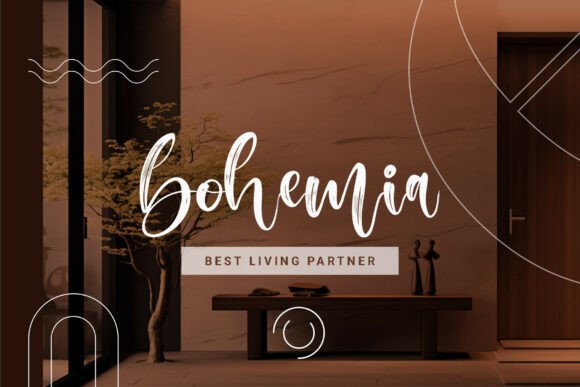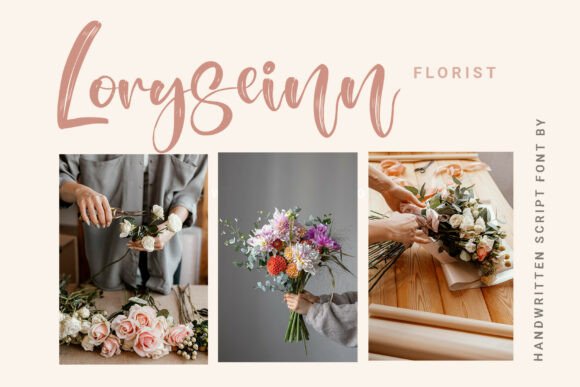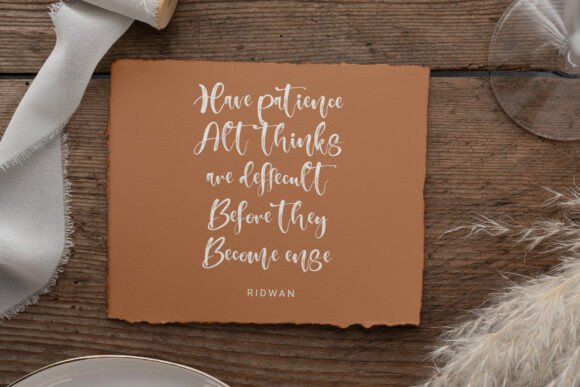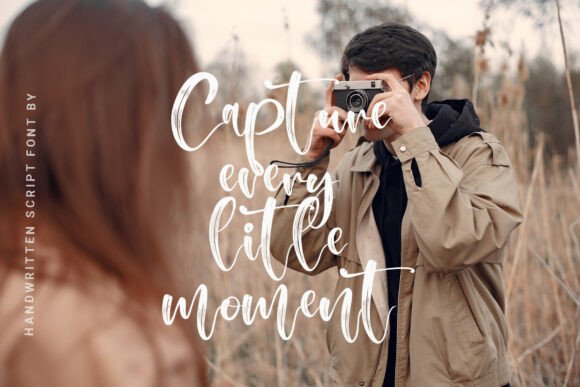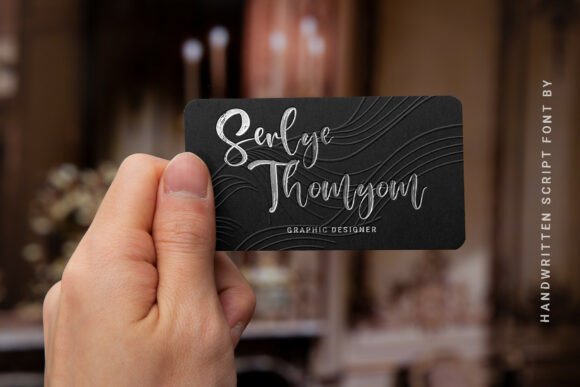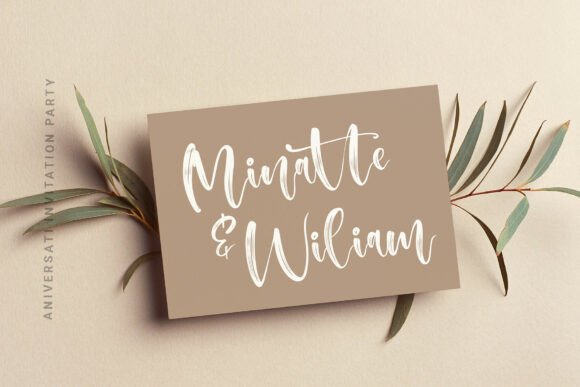
Bristleon Font: Unleash the Raw Energy of Handwritten Script
In the world of typography, few fonts manage to capture the essence of raw, artisanal energy. But Bristleon Font is here to change that. This dynamic handwritten script font is designed to bring a touch of urban grit and sophistication to your designs. With its unique dry-brush texture and fast, rhythmic strokes, Bristleon is the perfect choice for designers and crafters looking to add a dash of personality to their work.
The Inspiration Behind Bristleon
Bristleon Font draws inspiration from the world of streetwear and independent lifestyle branding. Its distinct texture and high-contrast swashes evoke the feeling of a real marker on paper, giving it an effortlessly cool silhouette that’s hard to ignore. Whether you’re designing a logo for a streetwear brand, creating a poster for a high-impact event, or crafting a social media header for a cinematic project, Bristleon is the perfect choice.
Key Features of Bristleon Font
- Dry-Brush Texture: Bristleon’s unique texture gives it a raw, artisanal feel that’s perfect for urban and lifestyle brands.
- High-Contrast Swashes: The font’s high-contrast swashes add a touch of sophistication and elegance to your designs.
- Fast, Rhythmic Strokes: Bristleon’s strokes mimic the movement of a real marker on paper, giving it a dynamic and expressive feel.
- Effortlessly Cool Silhouette: The font’s silhouette is effortlessly cool and modern, making it perfect for designers and crafters who want to add a touch of personality to their work.
Use Cases for Bristleon Font
Bristleon Font is versatile and can be used in a variety of design projects, including:
- Urban Streetwear Branding: Bristleon’s raw, artisanal energy makes it perfect for streetwear brands looking to make a statement.
- Independent Lifestyle Logos: The font’s unique texture and high-contrast swashes make it ideal for independent lifestyle brands looking to stand out.
- High-Impact Event Posters: Bristleon’s dynamic and expressive feel makes it perfect for event posters that need to grab attention.
- Cinematic Social Media Headers: The font’s effortlessly cool silhouette makes it ideal for social media headers that need to make a statement.
Why Choose Bristleon Font?
With so many fonts available, why choose Bristleon? Here are just a few reasons:
- Unique Texture: Bristleon’s dry-brush texture sets it apart from other fonts and gives it a raw, artisanal feel.
- High-Quality Design: The font is designed with high-quality, fast, and rhythmic strokes that mimic the movement of a real marker on paper.
- Versatility: Bristleon can be used in a variety of design projects, from urban streetwear branding to cinematic social media headers.
- Ease of Use: The font is easy to use and can be easily integrated into your design workflow.
In conclusion, Bristleon Font is a dynamic handwritten script font that brings a touch of raw, artisanal energy to your designs. With its unique dry-brush texture, high-contrast swashes, and fast, rhythmic strokes, Bristleon is the perfect choice for designers and crafters looking to add a dash of personality to their work. Whether you’re designing a logo for a streetwear brand, creating a poster for a high-impact event, or crafting a social media header for a cinematic project, Bristleon is the premier choice.